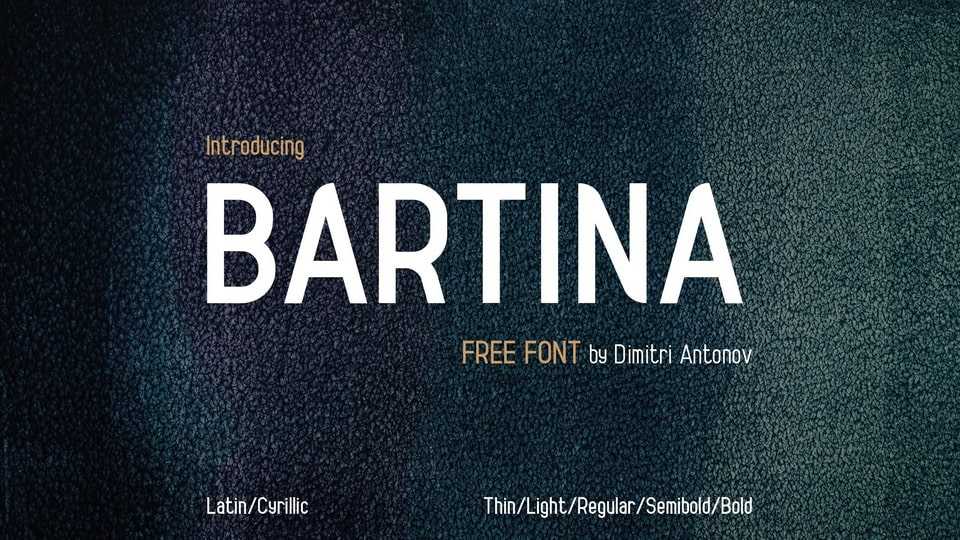
Download Bartina font, a new grotesque typeface perfect for your next design projects. Bartina is great for advertising, package design, and posters.
Designer: Dimitri Antonov